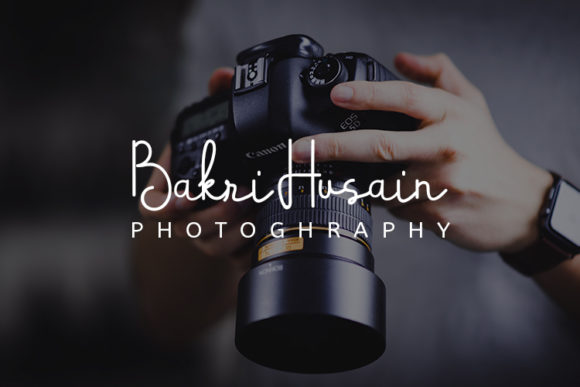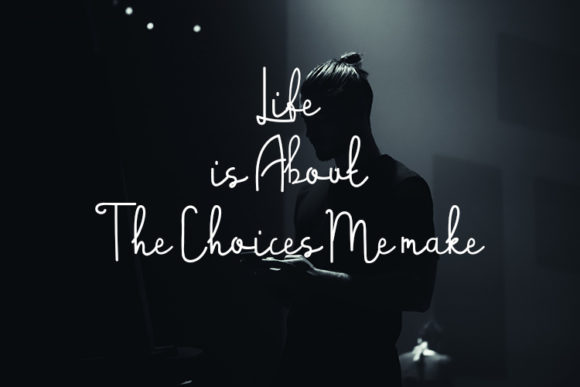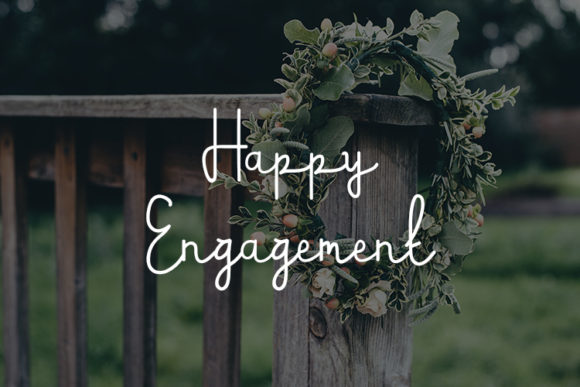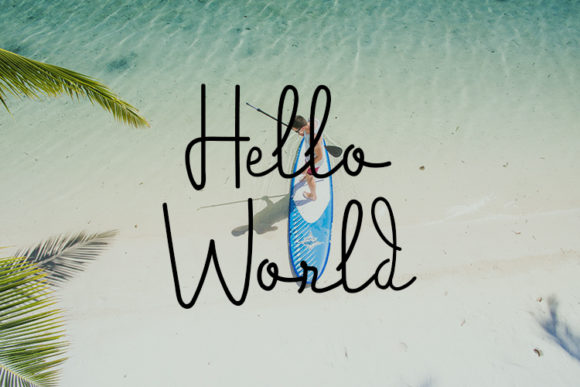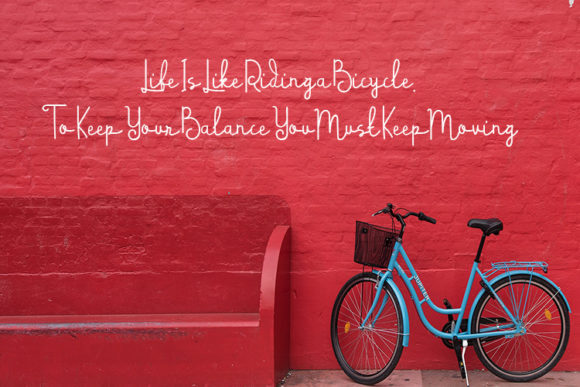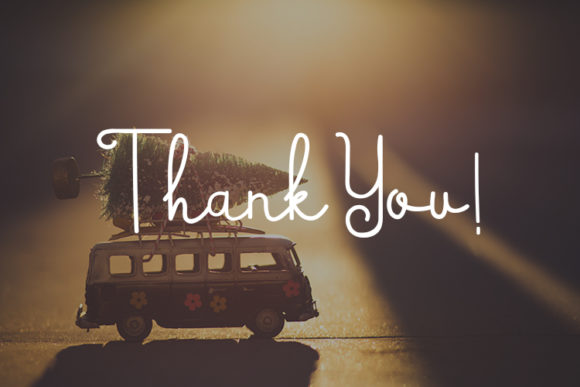
Belryna Font
About Belryna Font
The Belryna is a new modern calligraphy font with a classic and elegant touch.
It can be used for various purposes such as logos, wedding invitations, letterheads, signatures and much more.